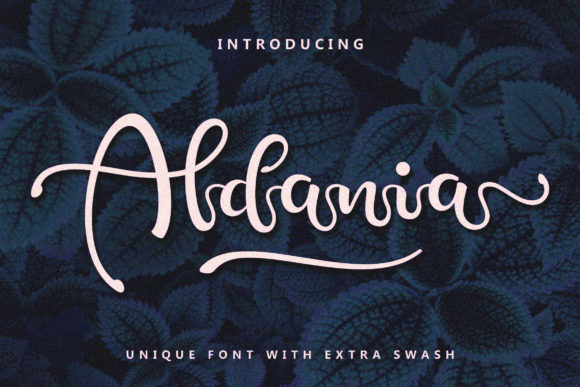
The Aldania Font: A Lovely Addition to Your Creative Projects
I’ll never forget the time I was working on a project for a client’s baby shower invitation. I had a clear vision of what I wanted to create – a sweet, whimsical design that would make the mom-to-be smile. But, as I began to search for the perfect font, I found myself stuck. I scrolled through page after page of Google results, but nothing seemed quite right. That was until I stumbled upon the Aldania font. ✨
As soon as I saw it, I knew I had found “the one.” Aldania is a beautiful and cute font with a unique feel and amazing swashes. Its adorable charm instantly won me over, and I couldn’t wait to dive in and explore its features.
An Honest Review of Aldania
• ✨ Unique and playful design that’s perfect for creative projects
• ✅ Amazing swashes that add an extra touch of personality to your designs
• ✅️ Highly legible, even at smaller font sizes
• 💕 Adorable charm that’s sure to make your designs stand out
While I absolutely love Aldania, there are a few things to keep in mind. 🤔 For example:
• ⚠️ Some users may find the font a bit too ornate for certain projects
• ⚠️ The swashes can be a bit finicky in certain design software
However, these minor quirks are easily overlooked given the font’s many benefits.
3. Experiment with the font’s OpenType features, such as swashes and stylistic alternates, to add personality to your design
The Story Behind Aldania
Aldania was designed by a team of creatives who wanted to create a font that would bring a touch of whimsy to designs. Inspired by the world of fashion and beauty, they crafted a font that’s both elegant and playful. 💅
Their goal was to create a font that would make designers feel confident and creative, and I think they’ve succeeded with Aldania.
Q: What makes Aldania unique?
A: Aldania’s unique blend of playfulness and elegance sets it apart from other fonts. Its swashes and stylistic alternates add an extra touch of personality to designs.
Q: Is Aldania suitable for body text?
A: While Aldania is highly legible, it’s best suited for headings or titles. For body text, you may want to choose a more traditional font.